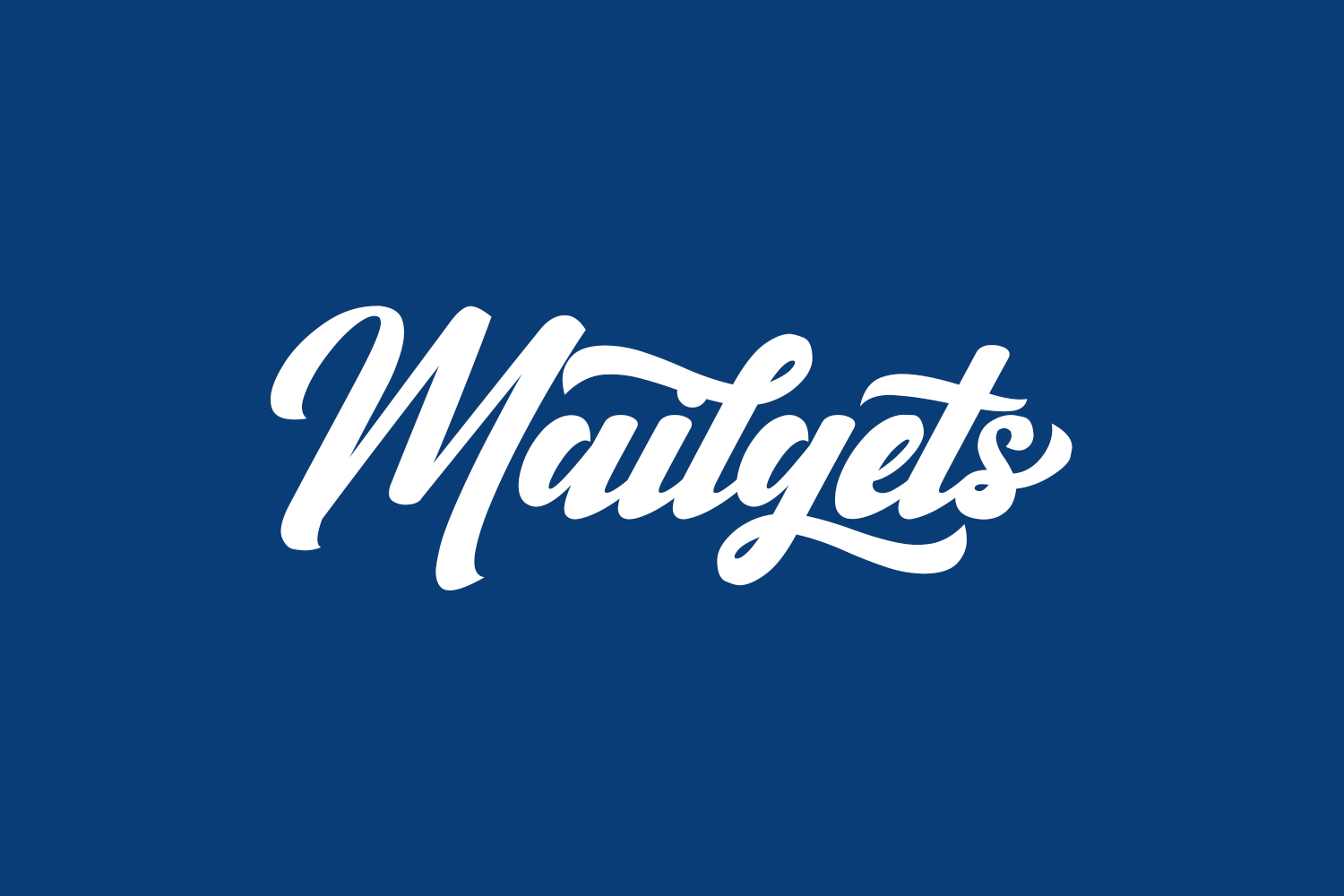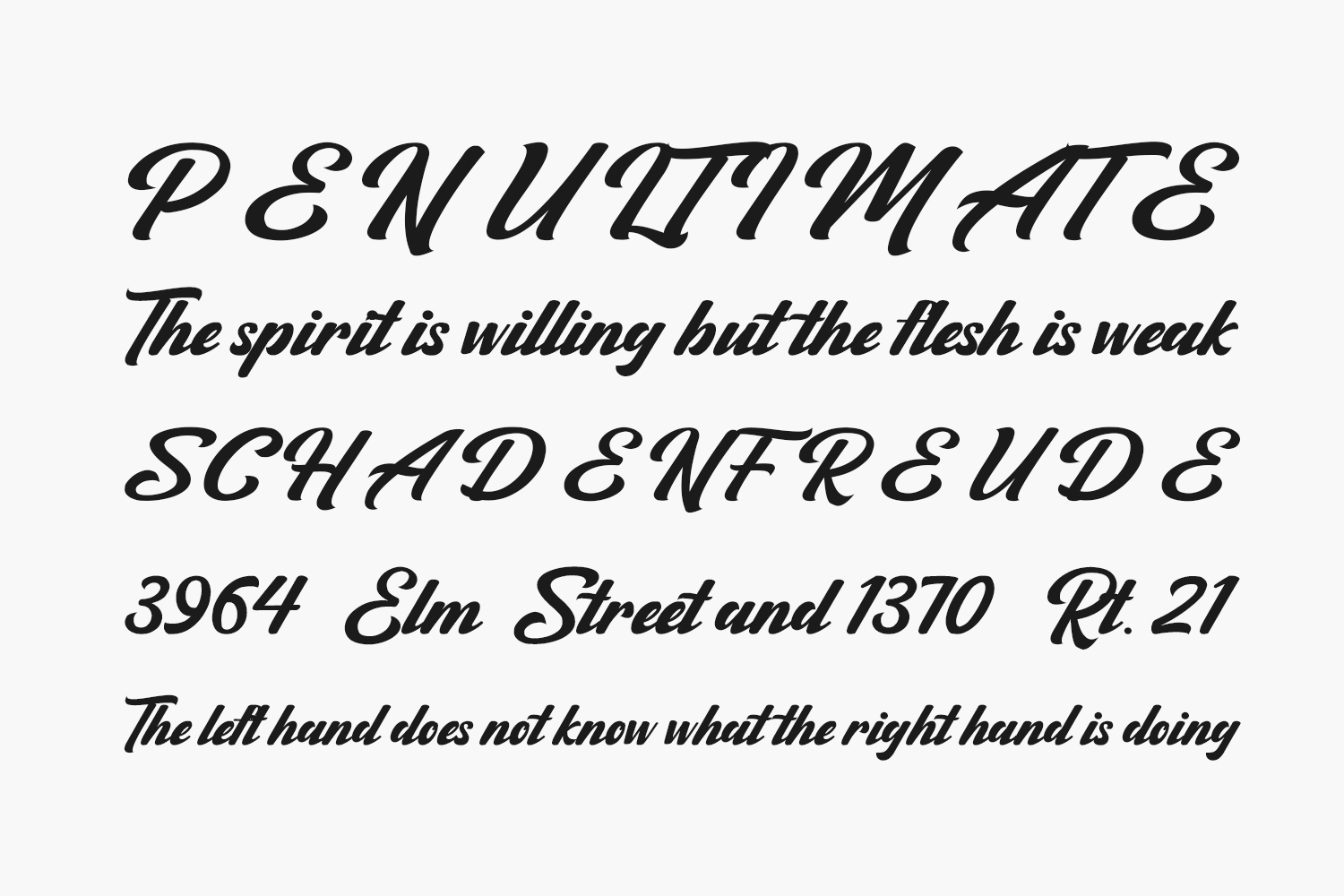
Discover Mailgets Free Font – a contemporary bold script font imbued with authenticity. Drawing inspiration from modern fashion fused with vintage aesthetics, it delivers an extra layer of sophistication. Ideal for crafting captivating logo designs, branding materials, marketing tools, posters, vintage-inspired creations, packaging, and beyond. Elevate your designs with Mailgets today. Download the font for free if you need it for personal use or purchase the full version for commercial use.
Designed by MJB Letters